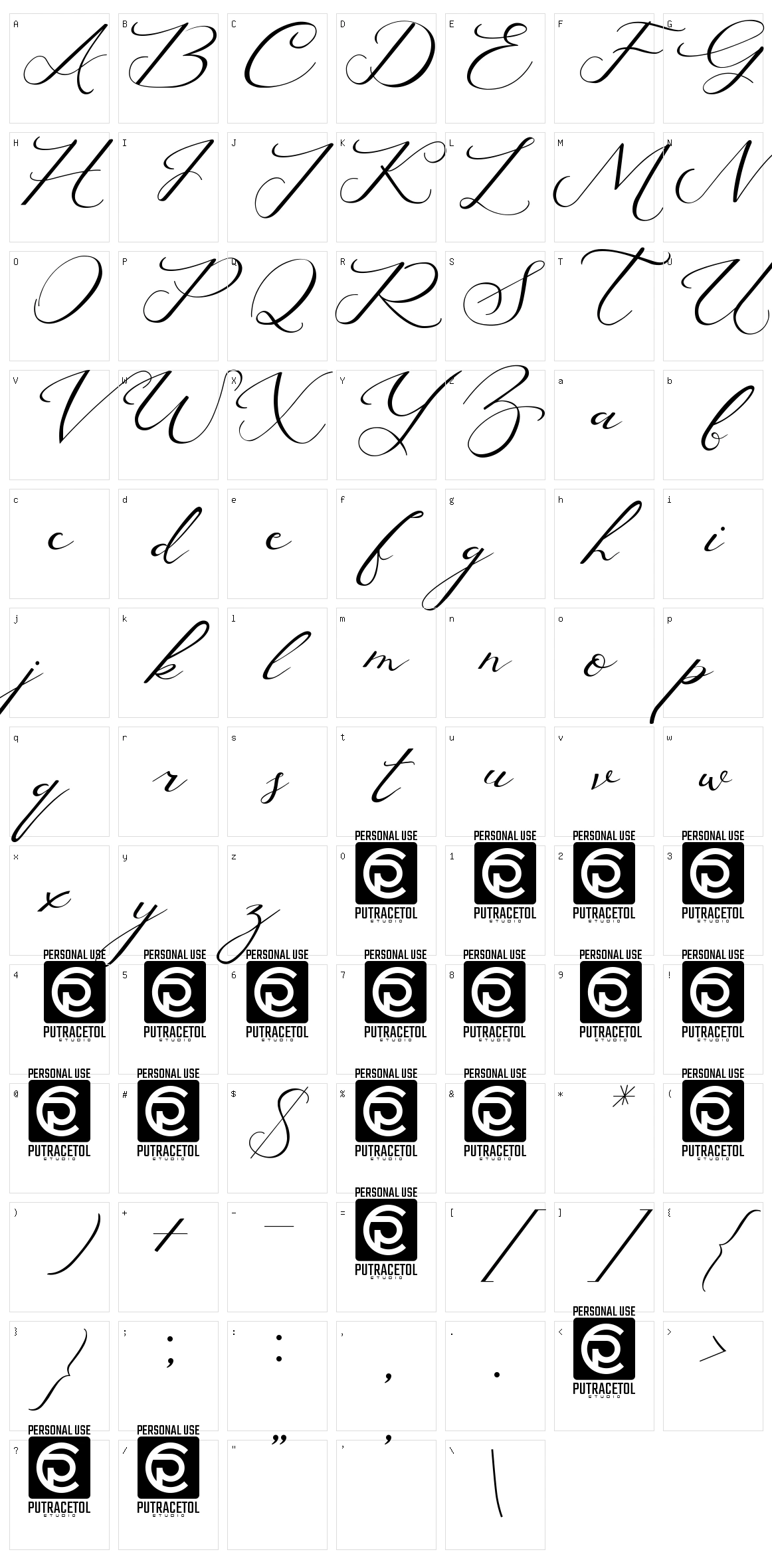
The free font Lusya is carefully designed by PutraCetol Studio, showcasing a thoughtful balance of creativity and usability and falls under the Script font style. When you download the ZIP file, it contains only 69.43 KB of font files, making it lightweight and quick to download. Please review the license details below to understand permitted usage and distribution rights. If license information is not available, we recommend using this font for personal projects only or contacting the author directly for commercial usage permissions.